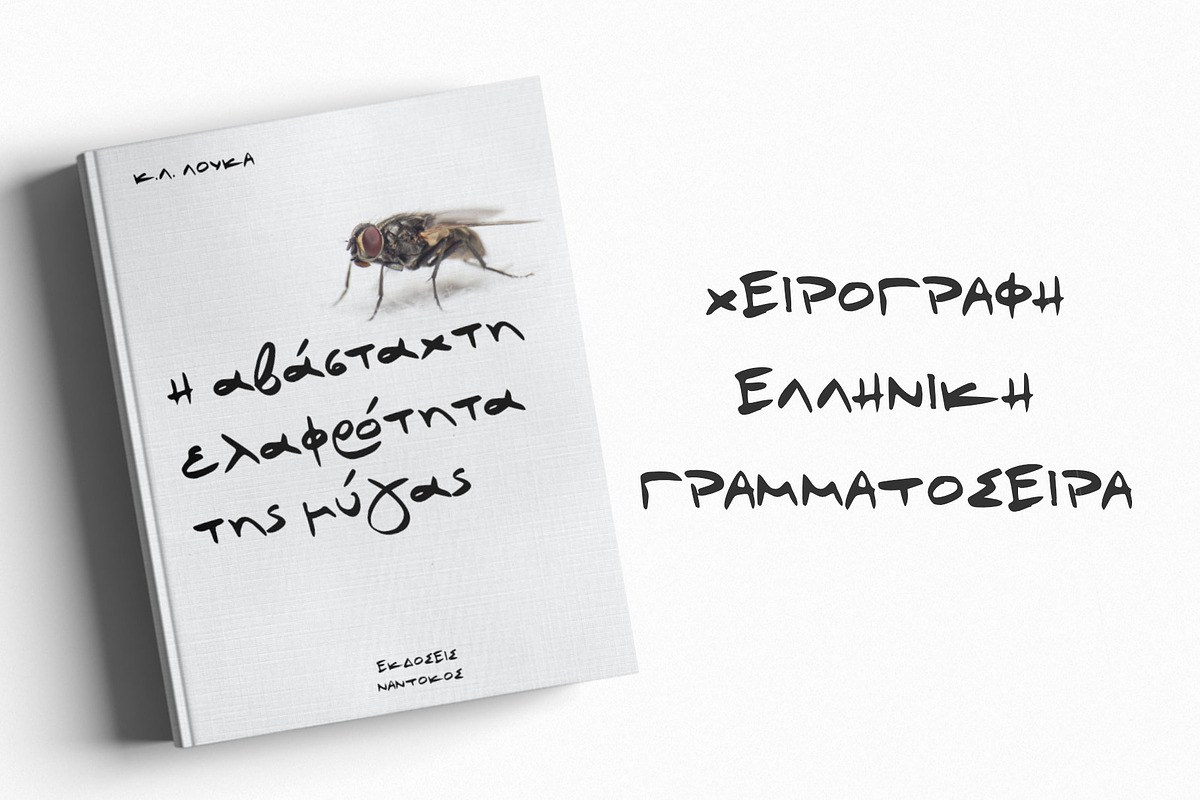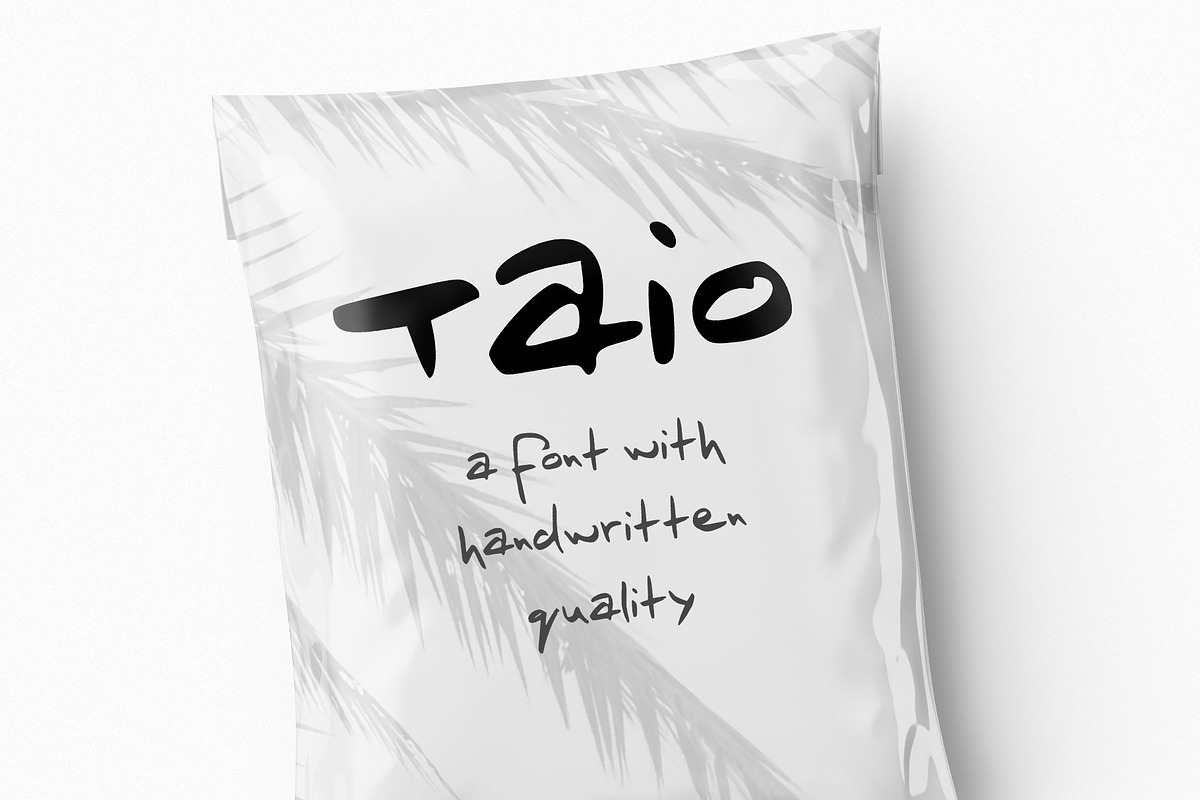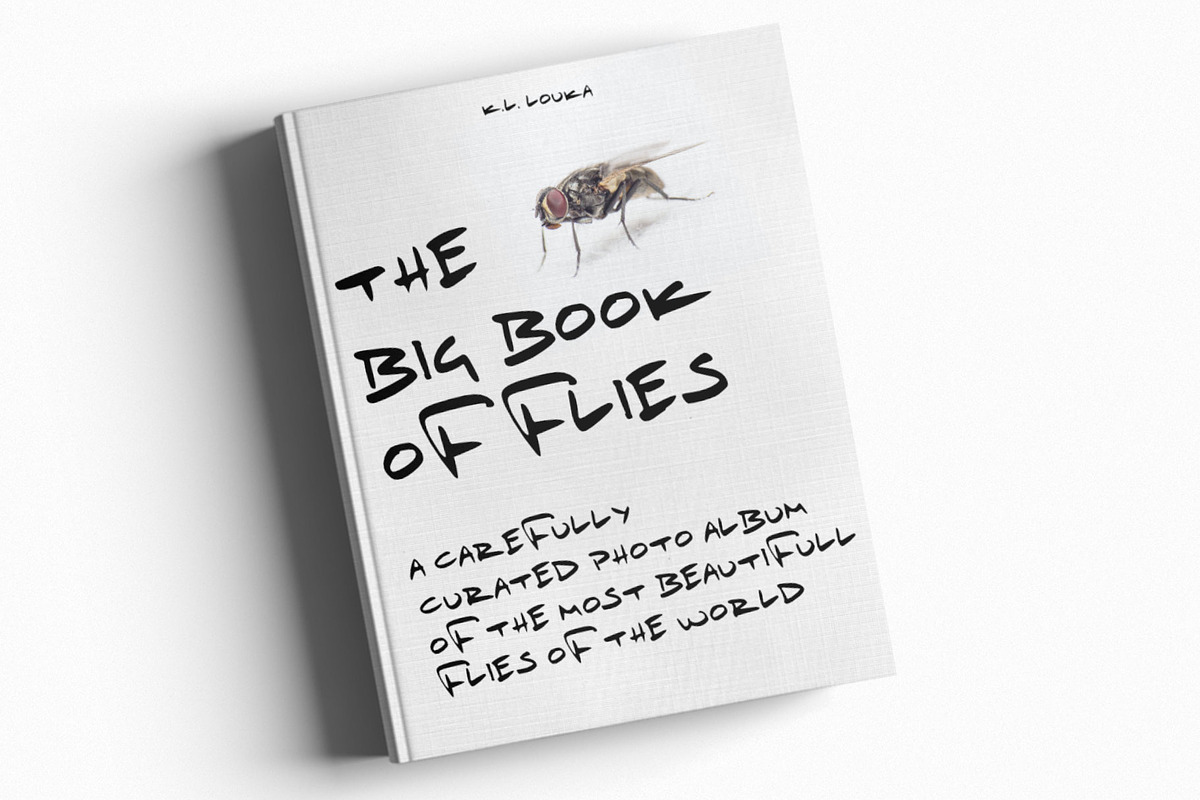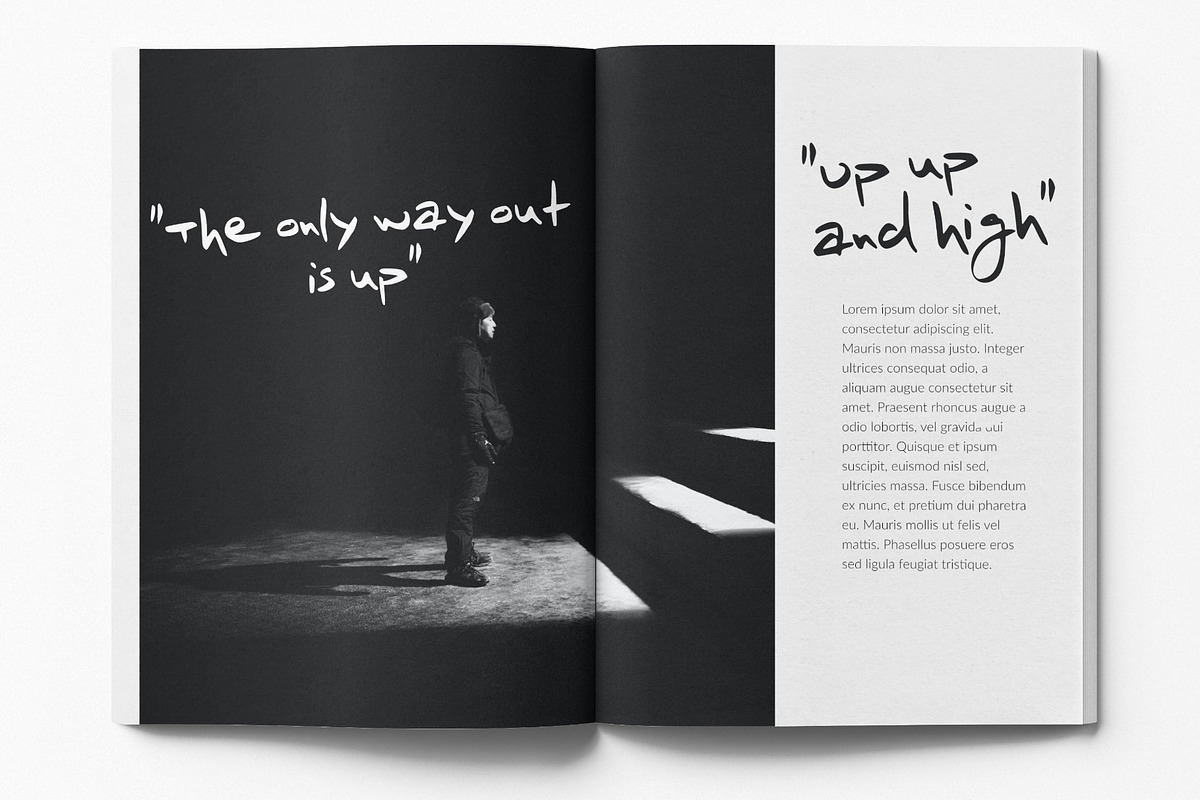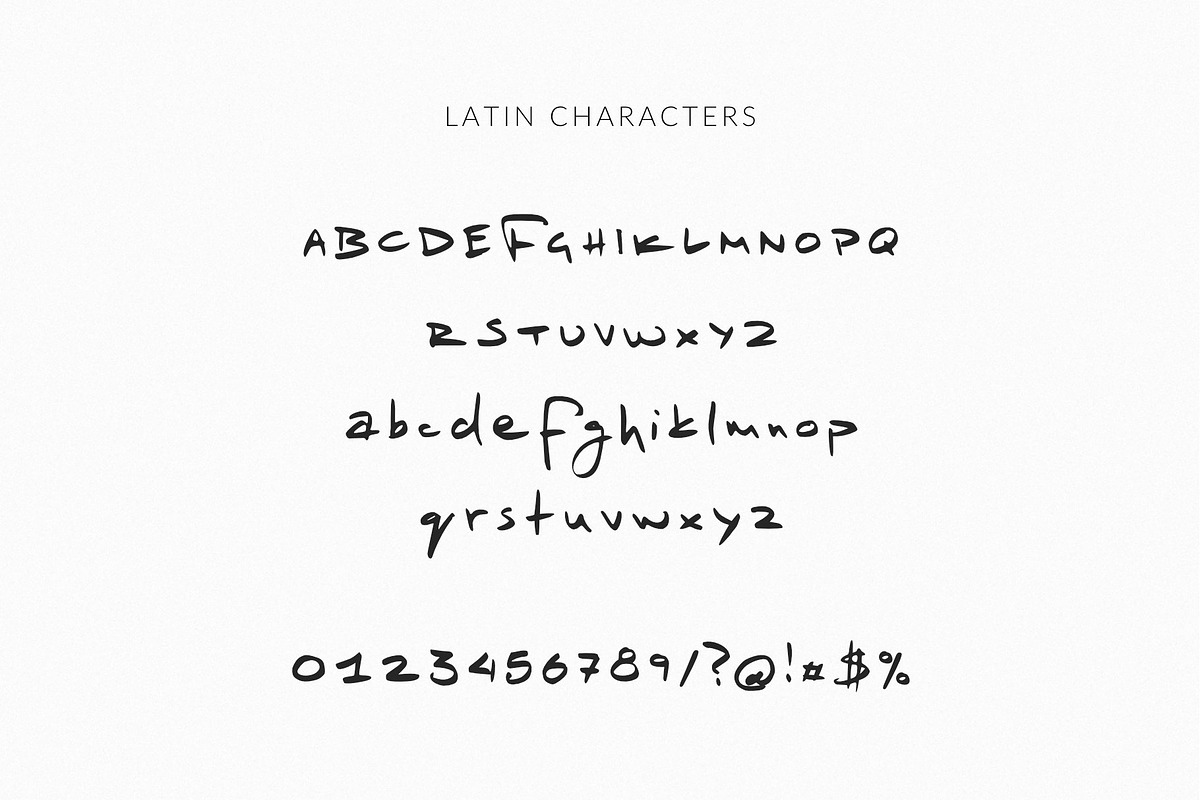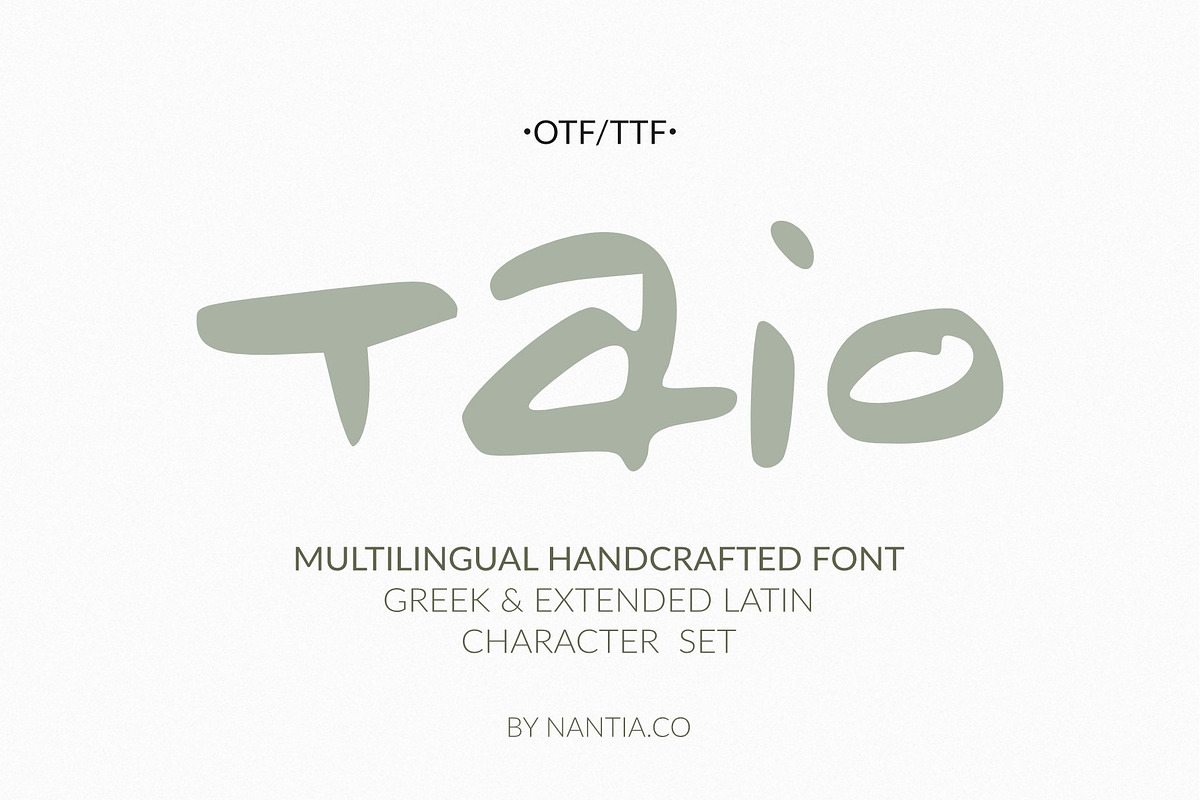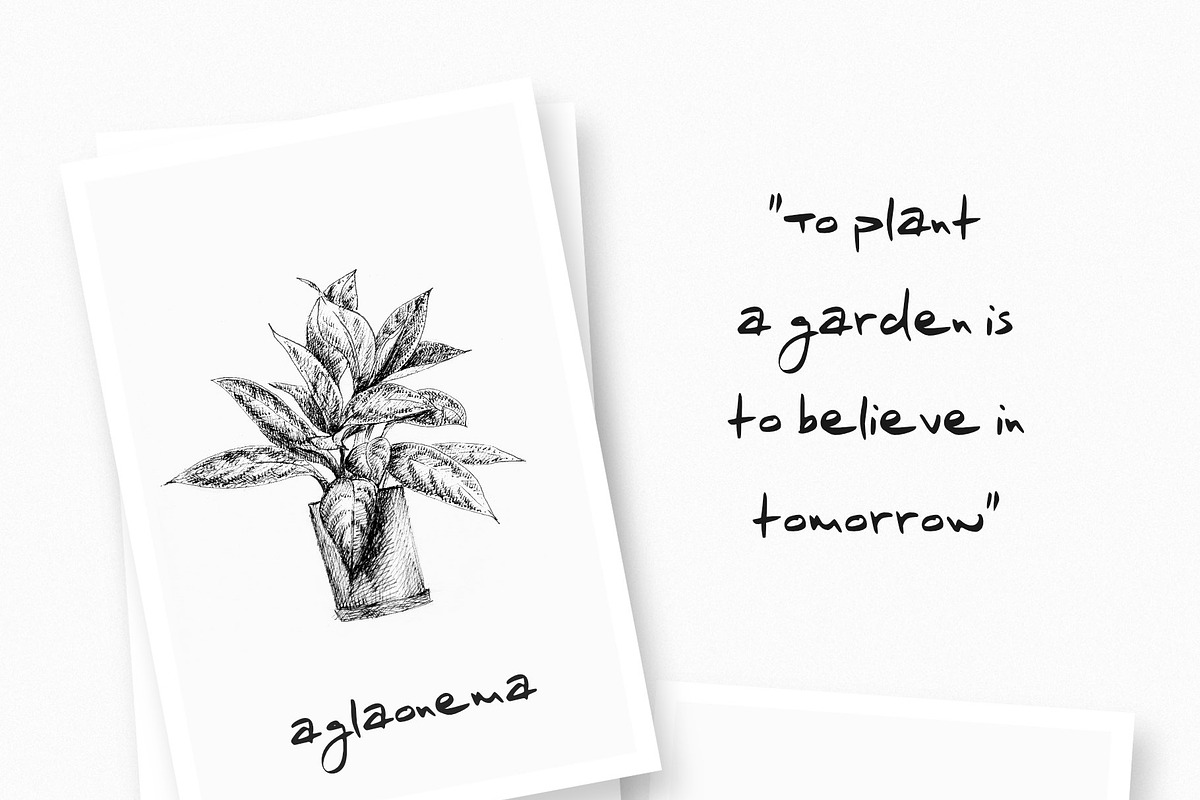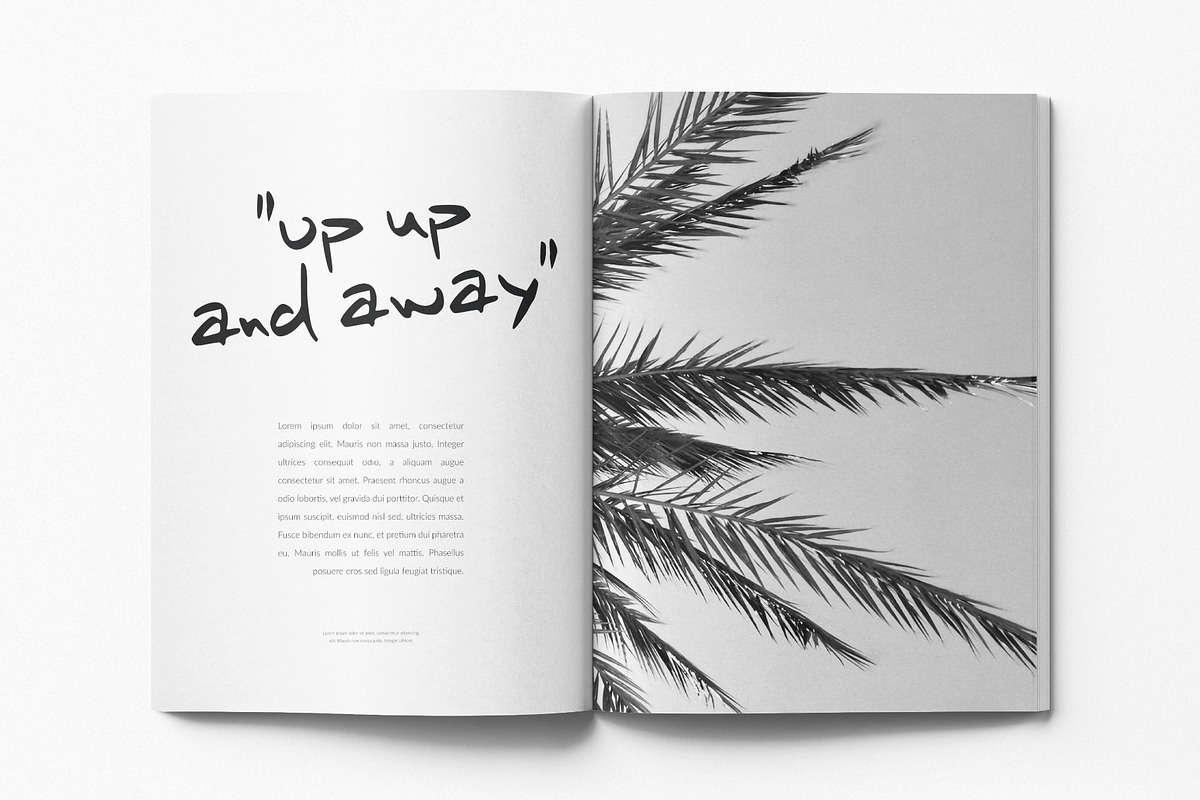
Greek Font Taio Handwritten
Taio Handwritten Greek Font
Taio Handwritten Greek Font is a handwritten display font. 100% handcrafted with a marker, digitized, and turned into a font. Of course, the font supports a full set of Greek characters and an extended Latin character set with diacritics. Τhis typeface can be your next typeface for your graphic design needs. From “hand-written” quotes to product packaging, merchandise, and branding projects, this font is so easy to use that it can cover them all. Also, it can be used on social media content, for branding, poster design, for “hand-written” quotes and any other kind of product packaging.
Extended Latin Character
Why Greek Font Taio Handwritten is worth a look
Greek Font Taio Handwritten by Greek fonts by nantia.co fits naturally into Branding, posters, packaging, typography.